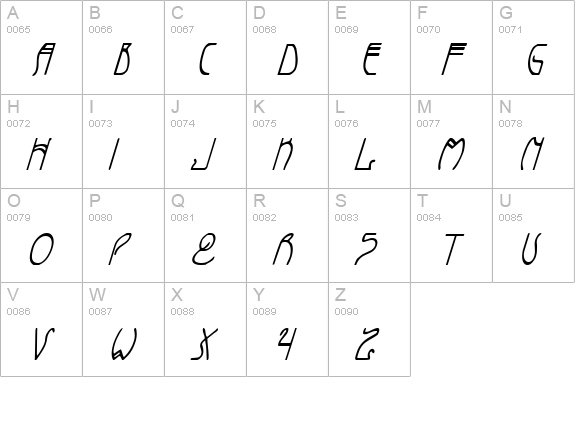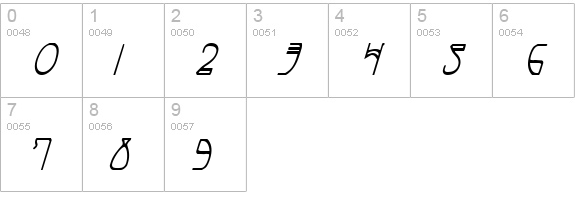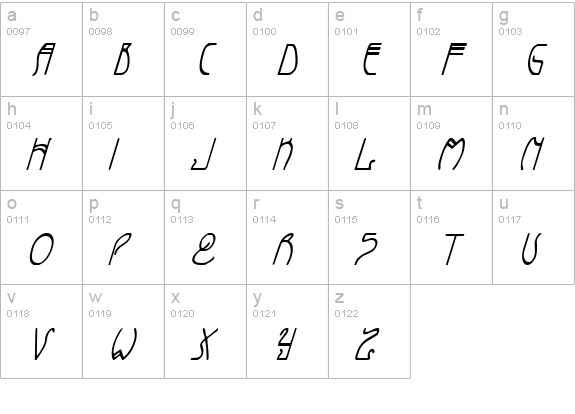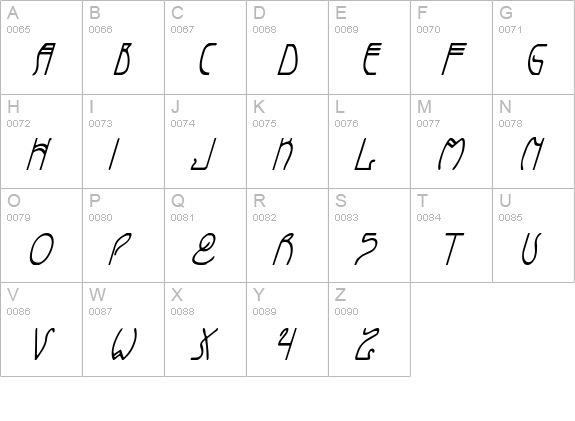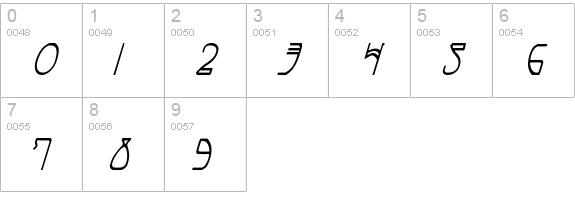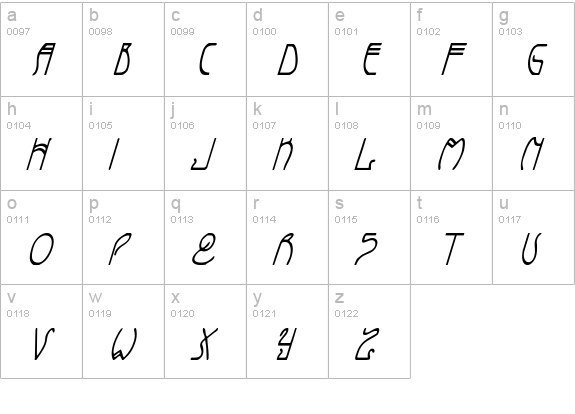
Coyote Deco CondItal font is a stunning display typeface that effortlessly combines vintage charm with a modern twist. Its sleek, art deco-inspired letterforms exude elegance and sophistication, making it a perfect choice for branding, headlines, and any design project that requires a touch of class. This font features a condensed italic style that adds a unique flair to any text, making it stand out and grab the attention of the audience. The tall, slender letter shapes create a sense of verticality and dynamism, giving your designs a sense of movement and energy. What's even better is that Coyote Deco CondItal font is available for free download at FontsMarket.com. This means you can easily access this beautiful typeface and incorporate it into your projects without any hassle. Don't miss out on the opportunity to elevate your designs with this striking and versatile font. Download Coyote Deco CondItal today and let your creativity soar!